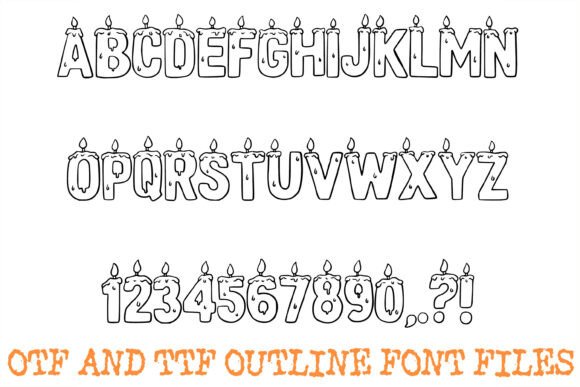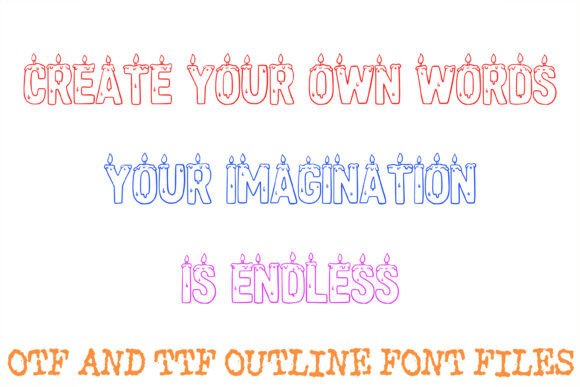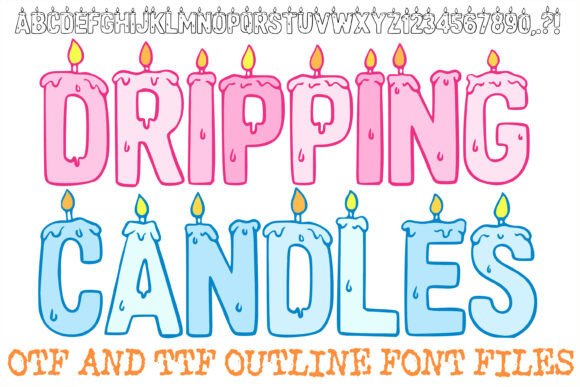
Dripping Candles Lettering Font: A Warm and Inviting Typeface for Cozy Designs
Are you looking for a font that evokes a sense of warmth and celebration? Look no further than the Dripping Candles Lettering Font. This beautiful display typeface features bold, rounded letterforms topped with lit wicks and melting wax, creating a cozy and inviting aesthetic that’s perfect for a variety of design projects.
A Unique and Eye-Catching Design
The Dripping Candles Font is characterized by its distinctive “dripped” textures and playful hand-drawn outline. Each character is designed to resemble a flickering candle, with bold, rounded letterforms that seem to glow with a warm, soft light. The font’s unique design creates a celebratory energy, making it perfect for birthday party invitations, cozy celebration graphics, vigil flyers, and seasonal festive branding.
Whether you’re a designer looking for a unique font to add to your collection or a crafter seeking a special font for your handmade projects, the Dripping Candles Font is an essential asset. Its whimsical and comforting aesthetic is both highly decorative and easy to read, making it perfect for a variety of applications, from boutique candle shop branding to heartfelt greeting cards.
Key Features of the Dripping Candles Font
- Bold, rounded letterforms: The font features bold, rounded letterforms that are perfect for creating eye-catching designs.
- Lit wicks and melting wax: Each character is topped with a lit wick and melting wax, creating a realistic and cozy candle effect.
- “Dripped” textures: The font’s distinctive “dripped” textures add a playful and whimsical touch to each character.
- Playful hand-drawn outline: The font’s hand-drawn outline adds a touch of personality and charm to each character.
- Easy to read: Despite its decorative nature, the font is easy to read and perfect for use in a variety of applications.
Uses for the Dripping Candles Font
The Dripping Candles Font is a versatile typeface that can be used in a variety of design projects, including:
- Birthday party invitations: The font’s celebratory energy makes it perfect for birthday party invitations and other celebration graphics.
- Cozy celebration graphics: The font’s warm and inviting aesthetic makes it perfect for creating cozy celebration graphics, such as those used for weddings, anniversaries, and other special occasions.
- Vigil flyers: The font’s soft, glowing effect makes it perfect for creating vigil flyers and other designs that require a sense of calm and contemplation.
- Seasonal festive branding: The font’s festive and celebratory energy makes it perfect for use in seasonal branding, such as holiday packaging and marketing materials.
- Boutique candle shop branding: The font’s candle-inspired design makes it perfect for use in boutique candle shop branding, including logos, packaging, and marketing materials.
- Heartfelt greeting cards: The font’s whimsical and comforting aesthetic makes it perfect for use in heartfelt greeting cards and other paper crafts.
The Dripping Candles Lettering Font is a unique and eye-catching typeface that’s perfect for designers and crafters looking to add a touch of warmth and celebration to their designs. With its bold, rounded letterforms, lit wicks and melting wax, and playful hand-drawn outline, this font is sure to become a favorite in your collection. Whether you’re designing birthday party invitations, cozy celebration graphics, or boutique candle shop branding, the Dripping Candles Font is the perfect choice.